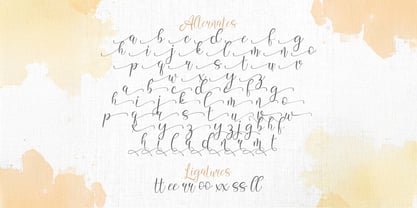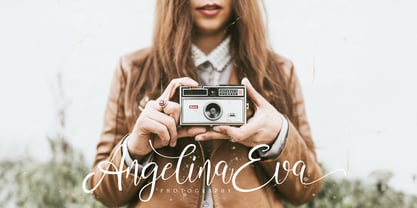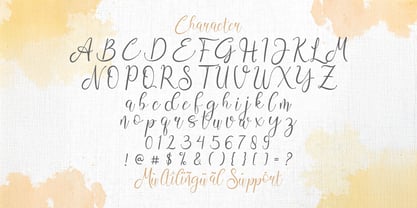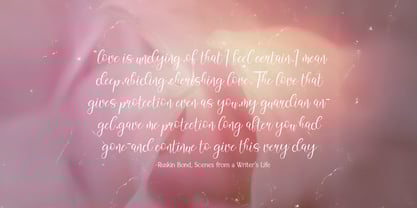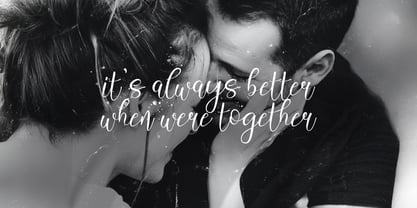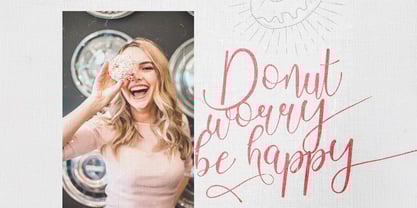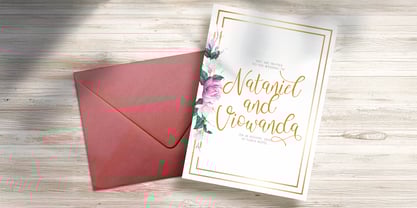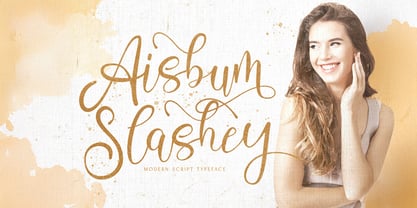
Aisbum Slashey
La familia tipográfica Aisbum Slashey fue diseñada por Virgiawan Listanto y publicada por Stringlabs Creative Studio. Aisbum Slashey contiene 1 estilos.
Aisbum Slashey is sleek and contemporary script font designed to bring elegance and flair to your designs. With its smooth, flowing curves and stylish slashes, this modern script exudes sophistication while maintaining a fresh, trendy vibe.